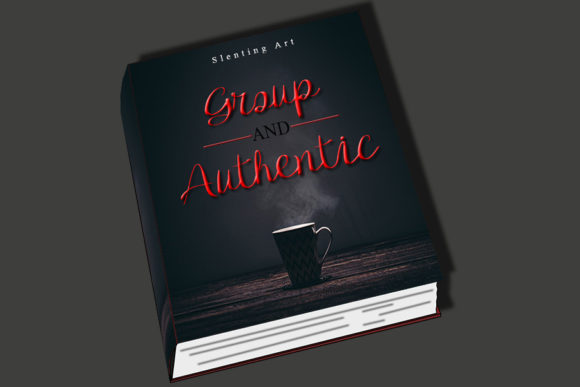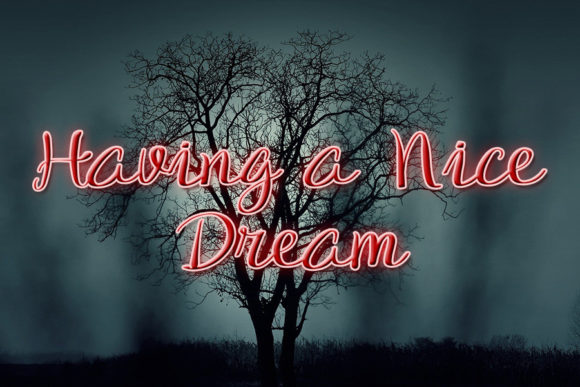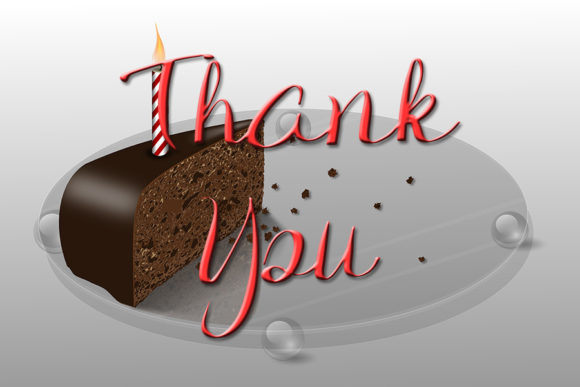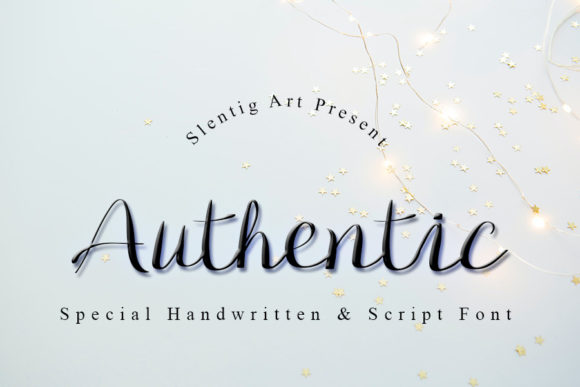
Discover the Elegance of Authentic Font: Elevate Your Designs with a Personalized Touch
In the world of typography, few fonts manage to strike a balance between elegance and approachability. Authentic font, a well-balanced and elegant handwritten font, is one such gem that has captured the hearts of designers and crafters alike. Its versatility and charm make it an ideal choice for a variety of designs that require a personalized style, including wedding invitations, thank you cards, weddings, greeting cards, logos, and more.
The Charm of Authentic Font
Authentic font boasts a unique charm that sets it apart from other fonts. Its handwritten elegance exudes warmth and sophistication, making it perfect for designs that aim to connect with the audience on a personal level. Whether you’re working on a wedding invitation or a brand logo, Authentic font brings a touch of class and refinement that elevates your design.
One of the standout features of Authentic font is its versatility. It doesn’t matter if you’re designing a formal wedding invitation or a playful greeting card; this font adapts seamlessly to various design requirements. Its balanced and elegant look ensures that your design communicates the intended message with style and poise.
Perfect for Personalized Designs
For designers and crafters who specialize in creating personalized items, Authentic font is a treasure. Its elegant and approachable feel makes it suitable for:
• Wedding Invitations: Make your wedding invitations stand out with a touch of elegance and sophistication.
• Thank You Cards: Express gratitude in style with beautifully crafted thank you cards.
• Greeting Cards: From birthday wishes to holiday greetings, Authentic font adds a personal touch to your cards.
• Logos: Create a memorable brand identity with a logo that exudes elegance and professionalism.
Why Designers and Crafters Love Authentic Font
Designers and crafters love Authentic font for several reasons:
• Ease of Use: Despite its elegant look, Authentic font is surprisingly easy to read and work with, making it accessible for a wide range of projects.
• Flexibility: It can be used in both digital and print designs, offering flexibility for various applications.
• Uniqueness: In a sea of generic fonts, Authentic font stands out with its unique charm and character.
Tips for Using Authentic Font Effectively
To make the most of Authentic font, consider the following tips:
• Pair it with Simplicity: Let Authentic font be the star of your design. Pair it with simple backgrounds or graphics to ensure it stands out.
• Experiment with Sizes: Play around with different font sizes to create visual hierarchy and emphasize key messages.
• Color Matters: Choose colors that complement the elegance of Authentic font. Soft pastels, rich jewel tones, or classic black and white can enhance its beauty.
Authentic font is more than just a typeface; it’s a design element that brings a touch of elegance and personalization to any project. Its versatility, charm, and ease of use make it a favorite among designers and crafters. Whether you’re working on a wedding invitation, a logo, or a greeting card, Authentic font is sure to elevate your design and leave a lasting impression.